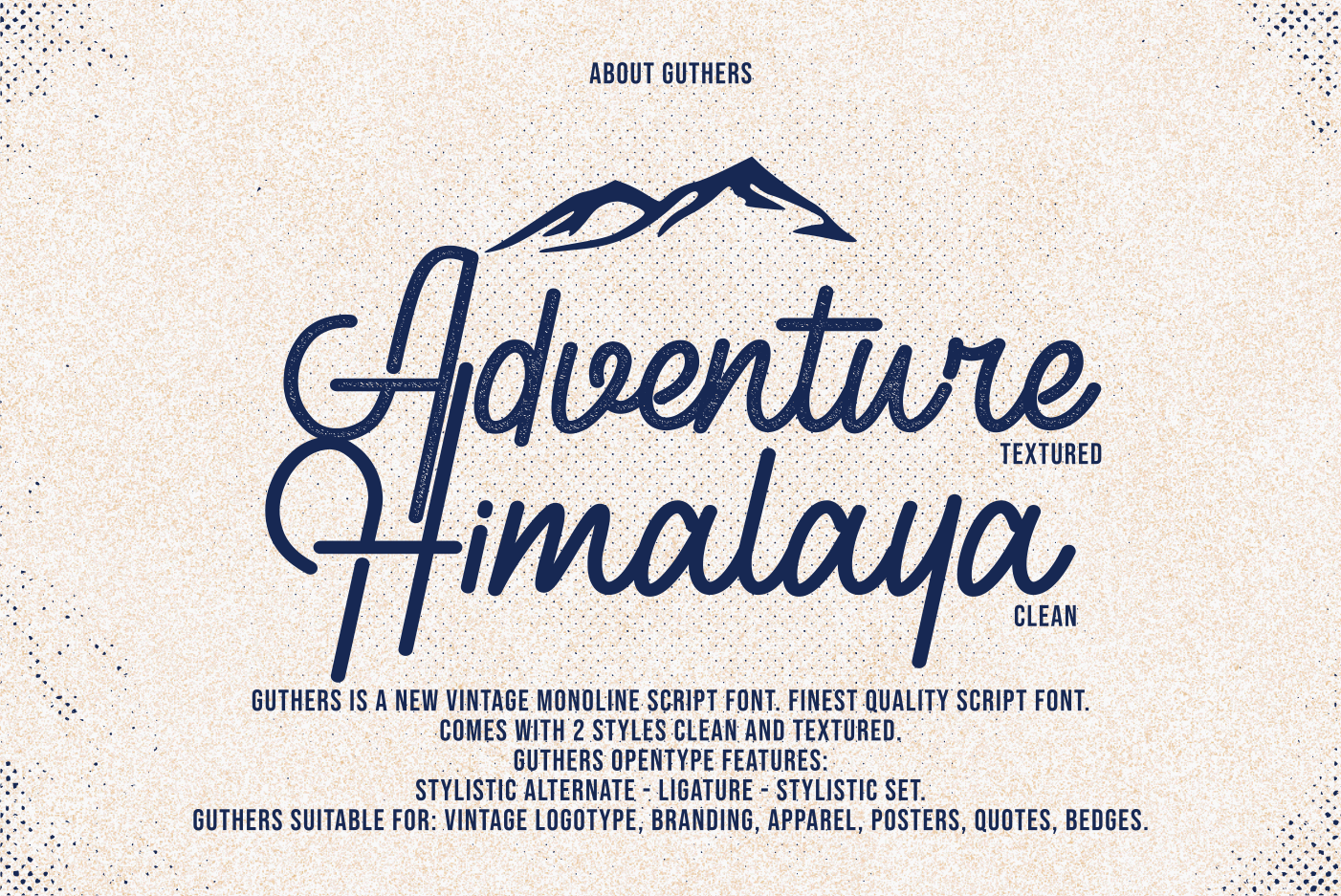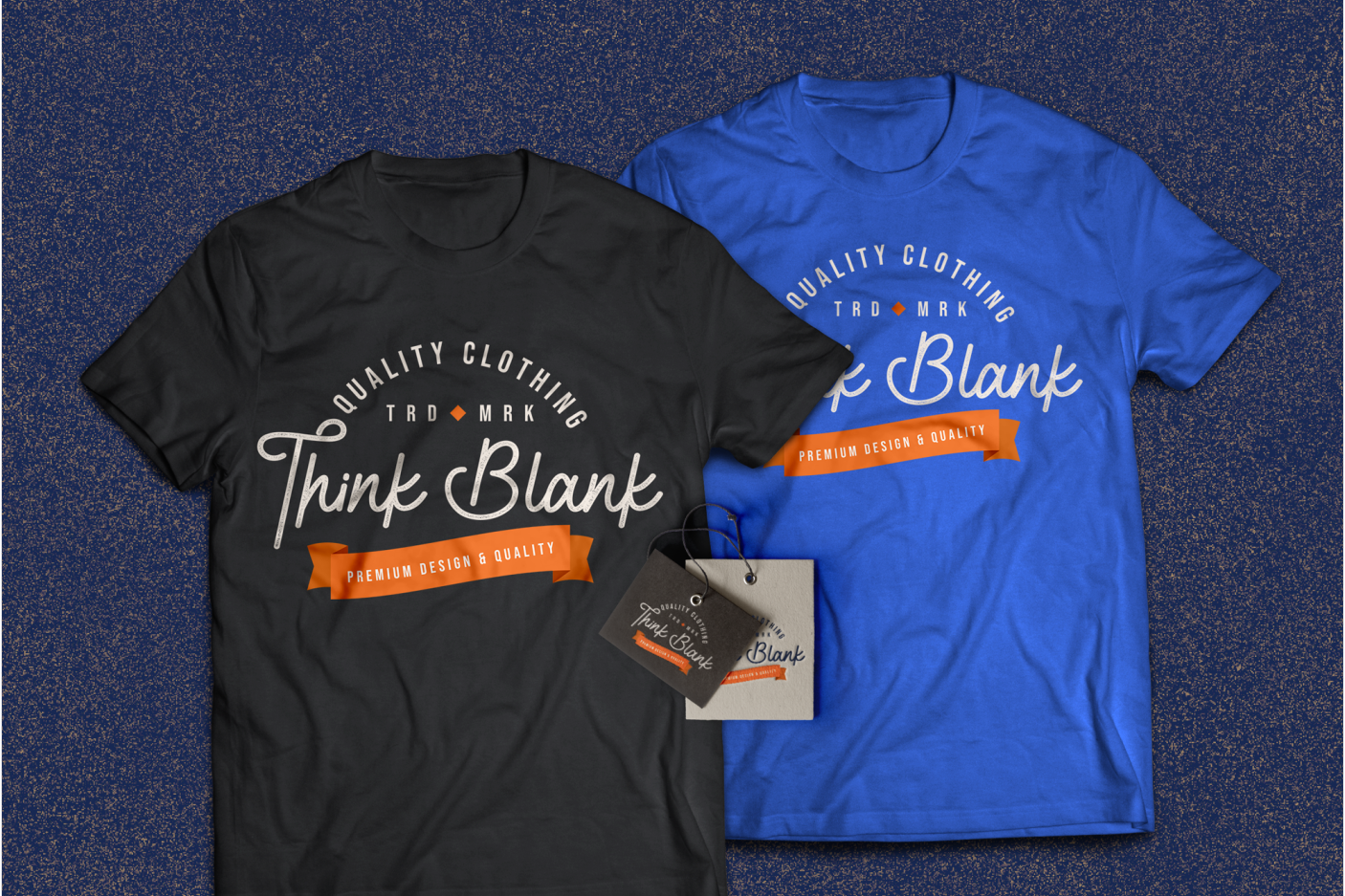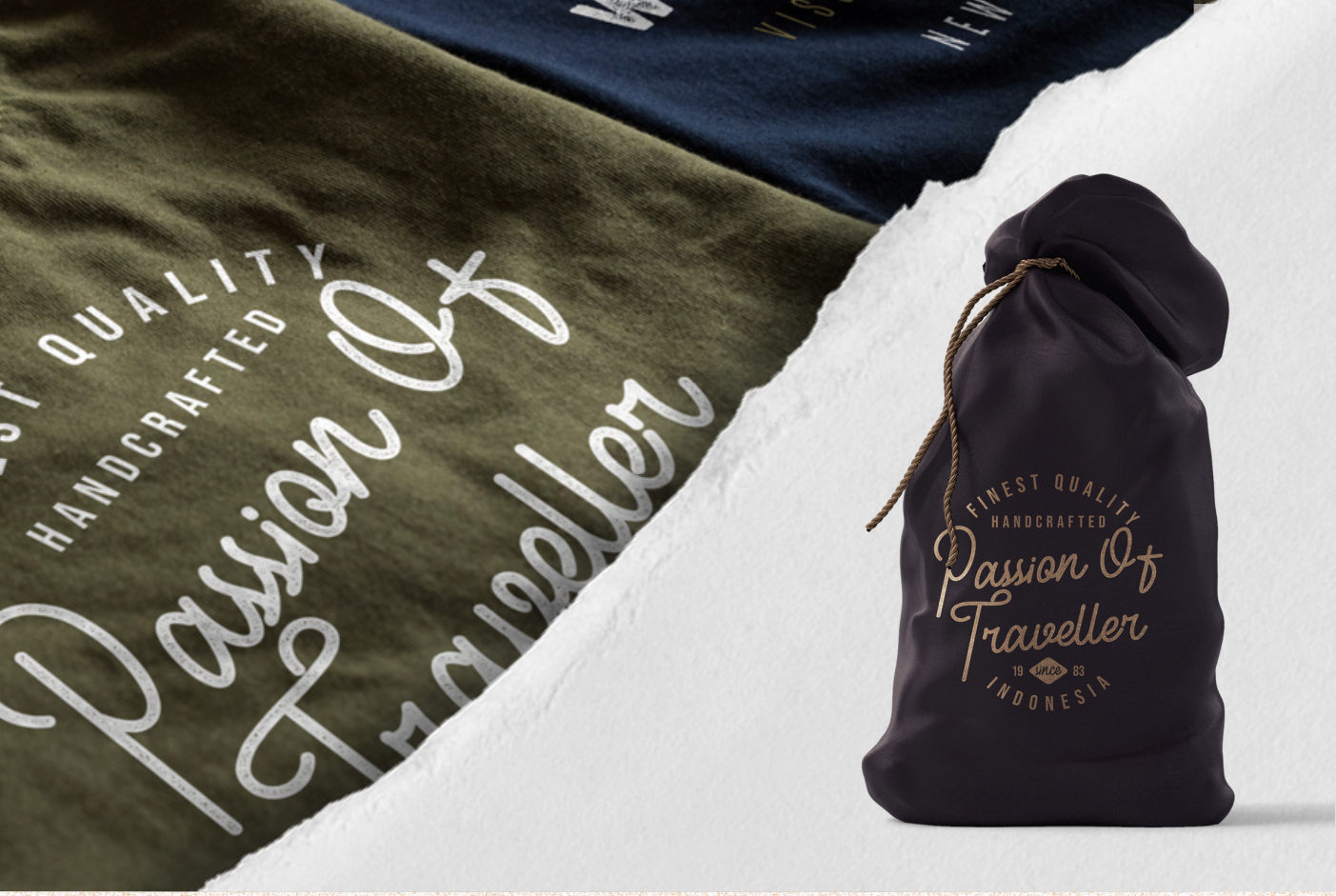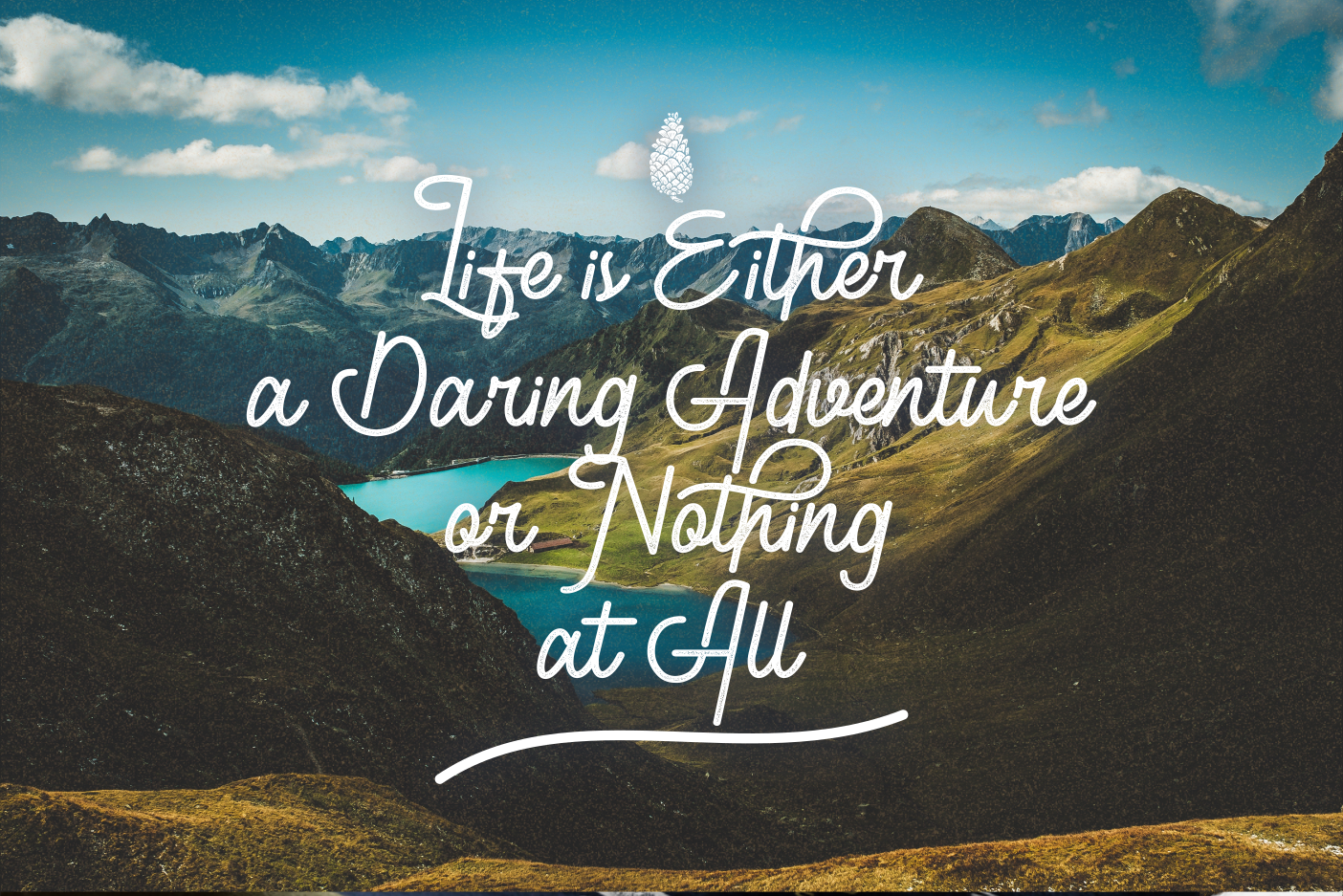
Free Font Guthers
Free Font Guthers is perfect for logotype, headline, apparels, quotes, posters, labels with vintage, and exclusive feels. This free typeface was designed by a talented Ibnu Utomo. If you like it don’t forget to check out the full version.